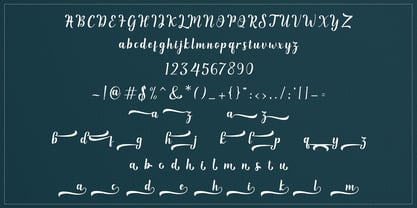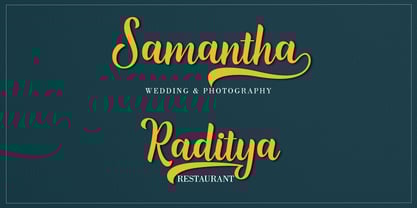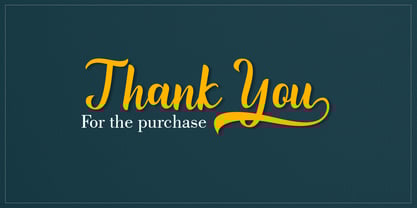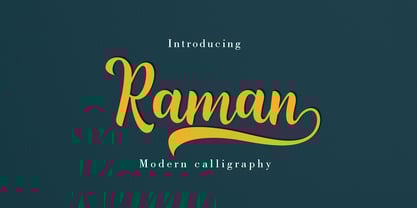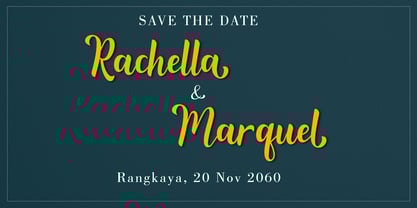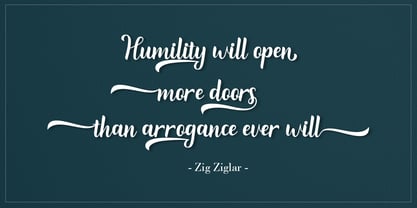
Raman
by Amarlettering
The Raman Font Family was designed by Kamaruddin and published by Amarlettering. Raman contains 1 styles.
Font Raman is a delicate and elegant script font with a modern and sophisticated appearance. Its thin letterforms feature fluid strokes and subtle curves, creating a graceful and refined feel. The font is perfect for designs that require a sense of elegance and sophistication, such as wedding invitations, branding, or editorial design.
Designers: Kamaruddin Kamaruddin
Publisher: Amarlettering
Foundry: Amarlettering
Design Owner: Amarlettering